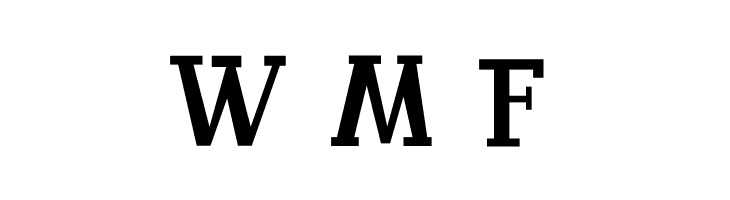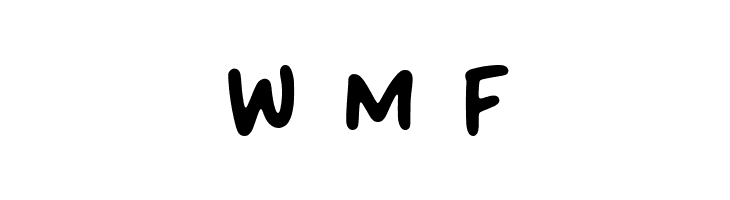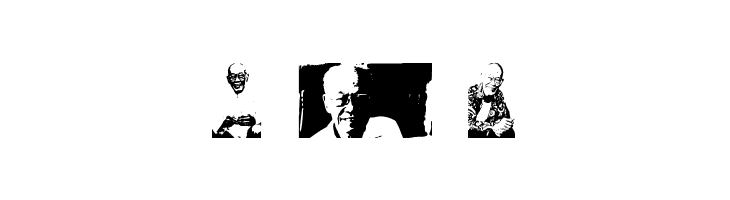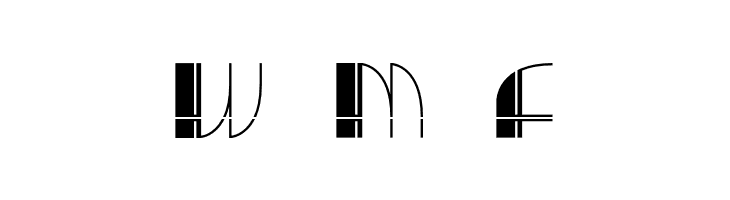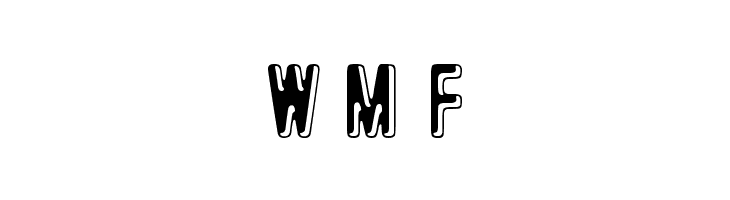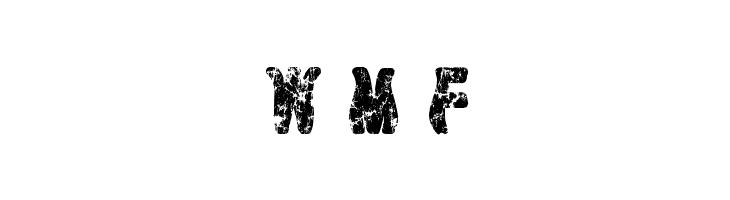
A playful, bold outline font with rounded characters and a whimsical style.
A bold, distressed font with a rugged, weathered appearance.
A casual, handwritten font with smooth, flowing strokes and medium thickness.
A playful, bold outline font with rounded edges and a cartoonish style.
A display font using photographic portraits to form each character.
A bold, classic serif font with strong, angular serifs and a slightly condensed structure.
A bold, playful font with a shadowed, three-dimensional effect.
A bold, playful handwritten font with rounded, consistent strokes.